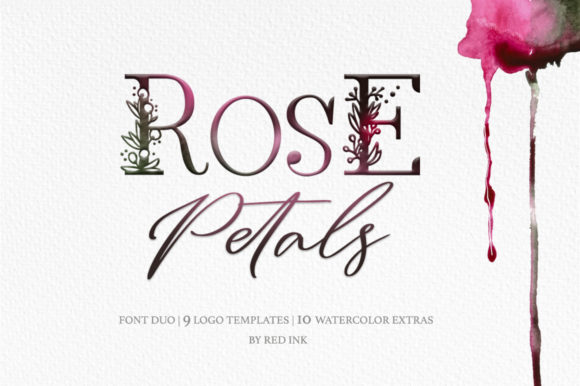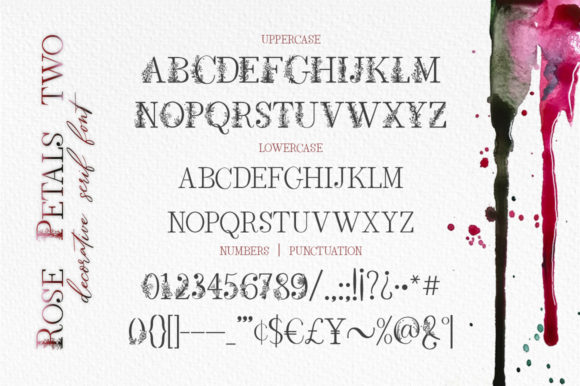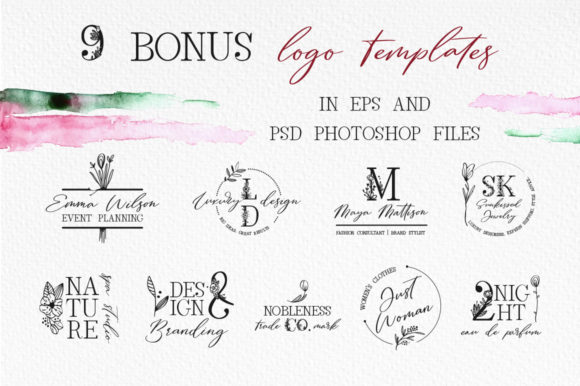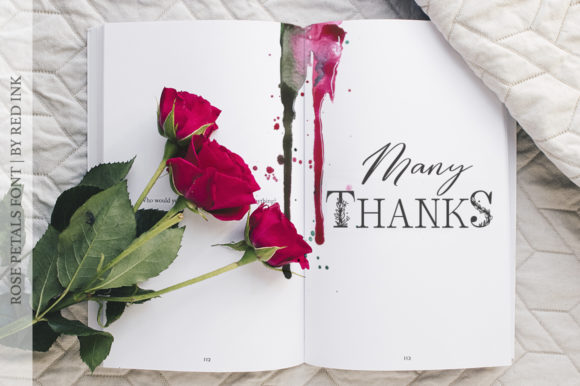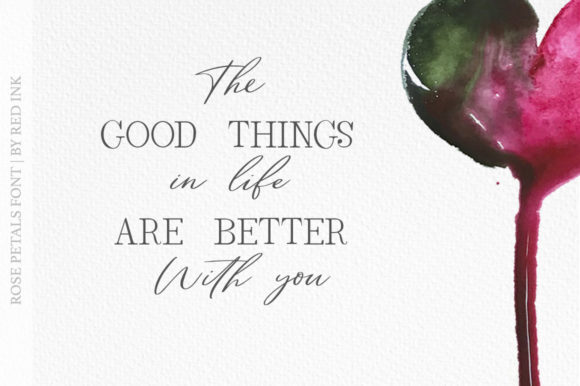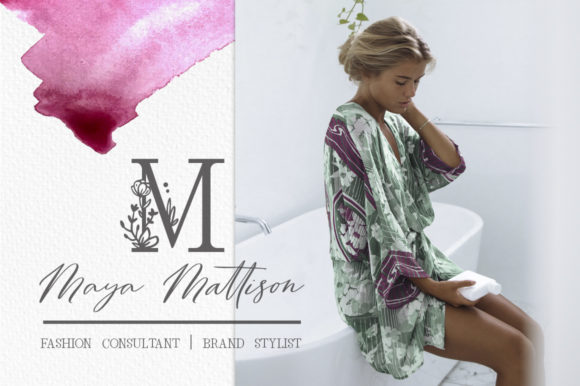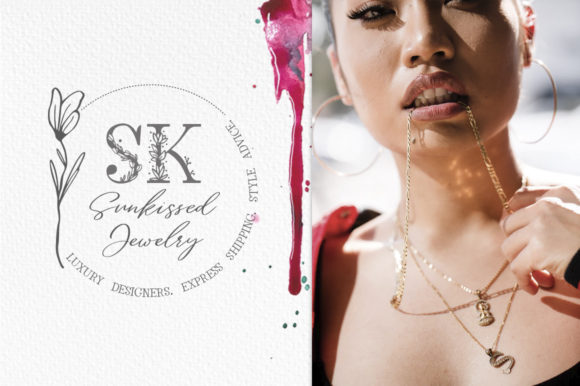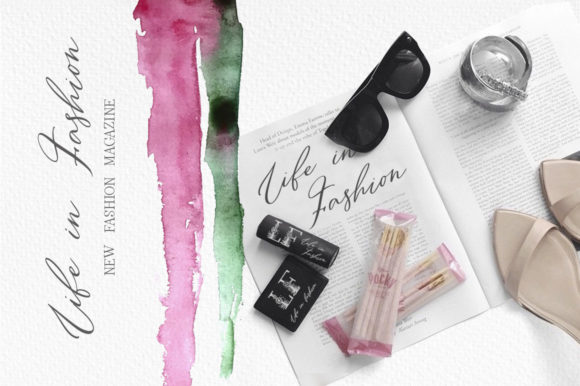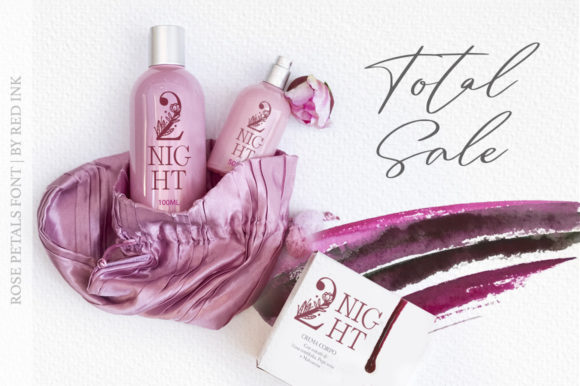
Rose Petals Duo Font
About Rose Petals Duo Font
Rose Petals is a stunning font duo with a beautiful feel. When combined, these two fonts will turn any creative project into a stand out!